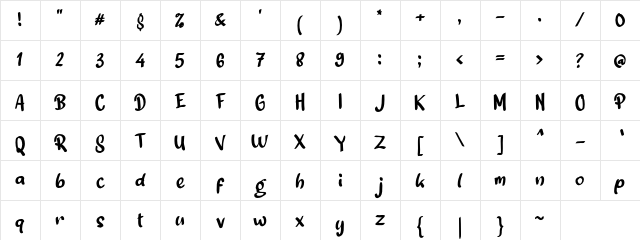
Complete a Semongko Regular glyph index. Displaying only characters natively supported by a Semongko Regular font.
a Semongko is a composed and adaptable typeface that performs quietly and consistently across a wide range of design contexts.